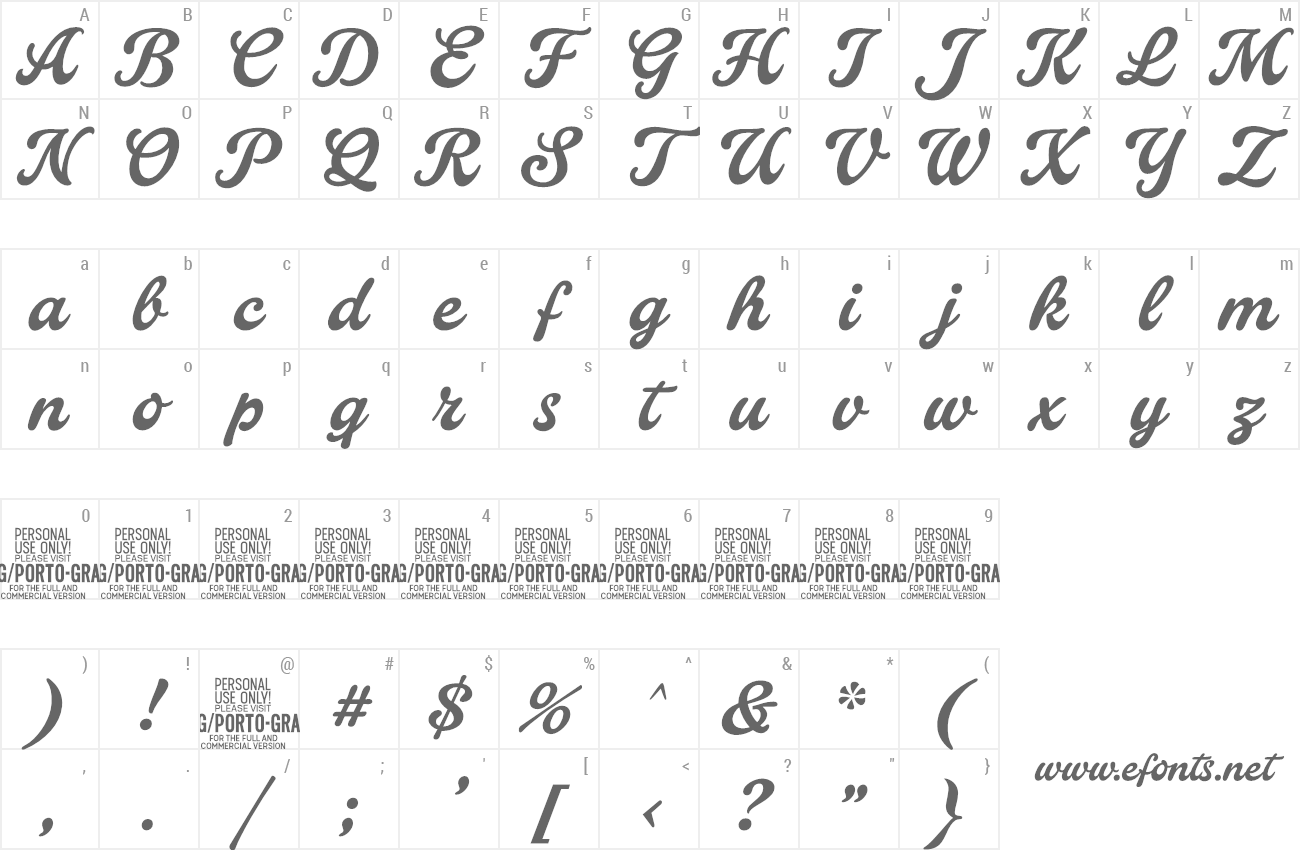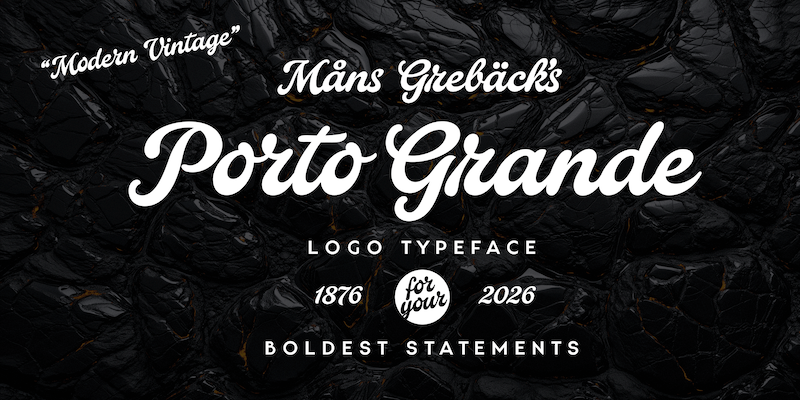
Preview and download Porto Grande Font. Created by Måns Grebäck in Script Old School styles with Free for personal use license.
NOTE: This font is for PERSONAL USE ONLY! To purchase a commercial license, visit: https://www.mansgreback.com/product/porto-grande Porto Grande is a modern vintage script with a confident, flowing voice. It blends classic sign painting character with a contemporary smoothness. For questions, please visit https://mansgreback.com/faq |